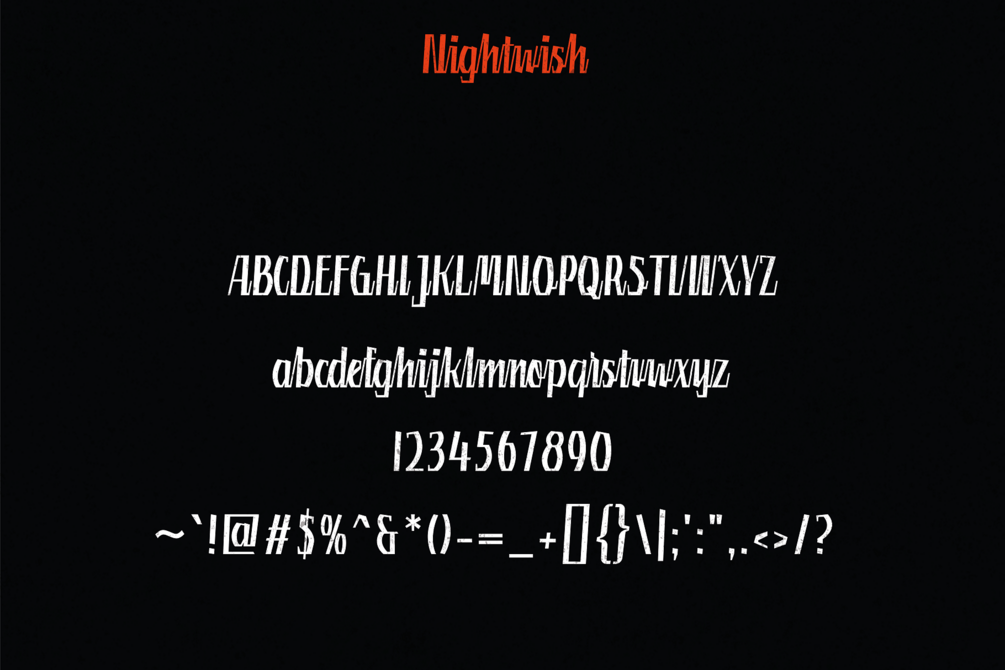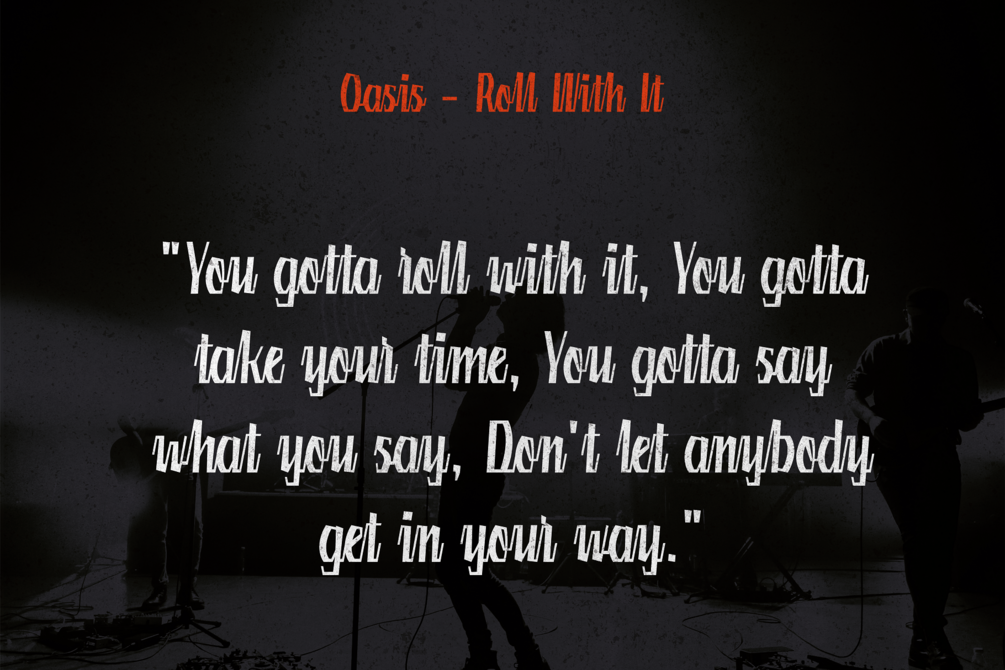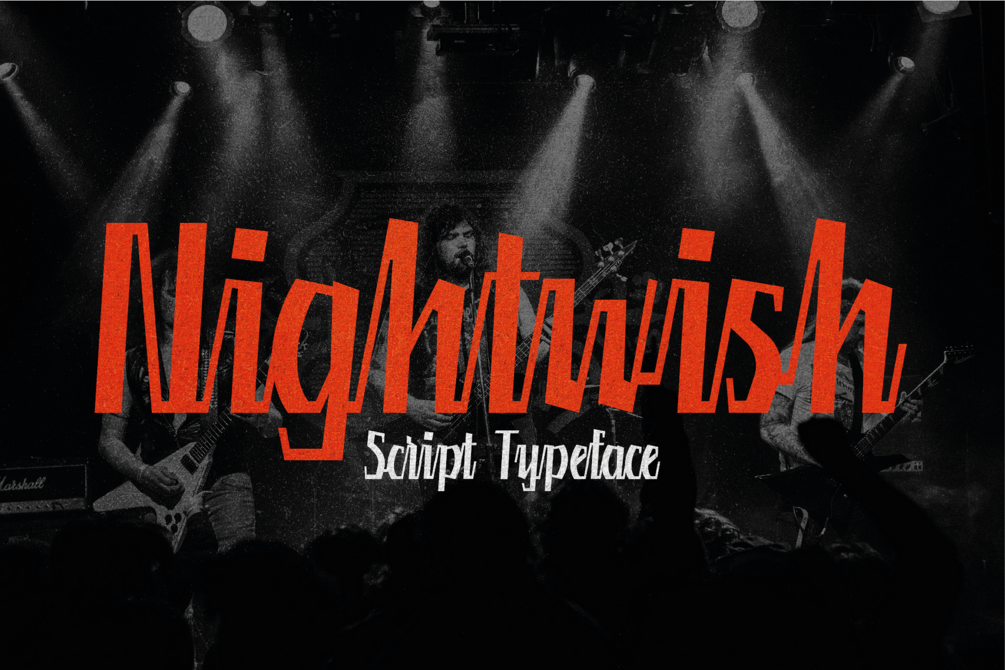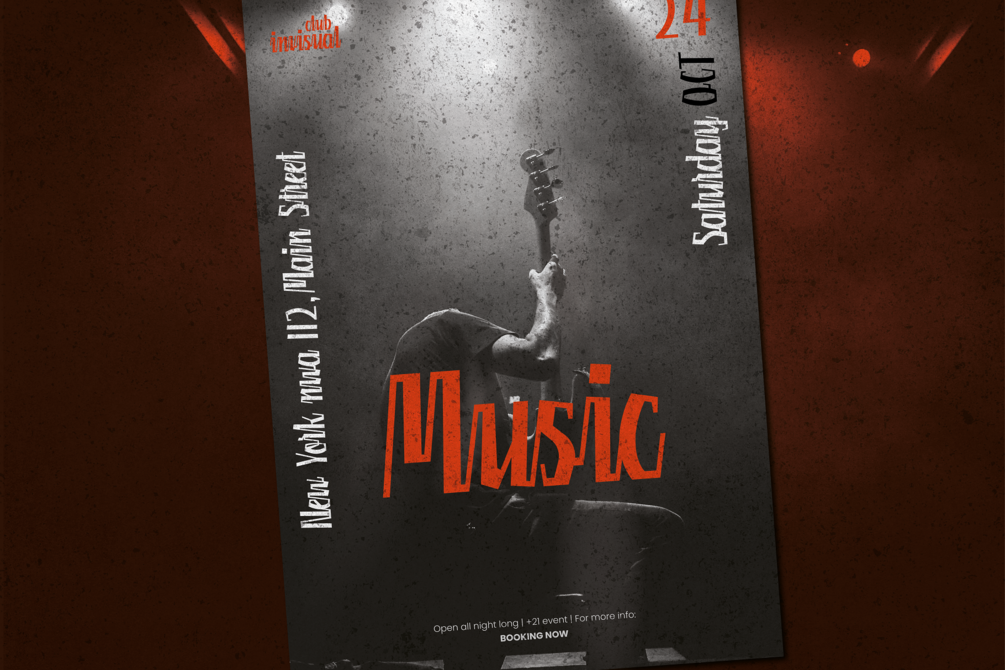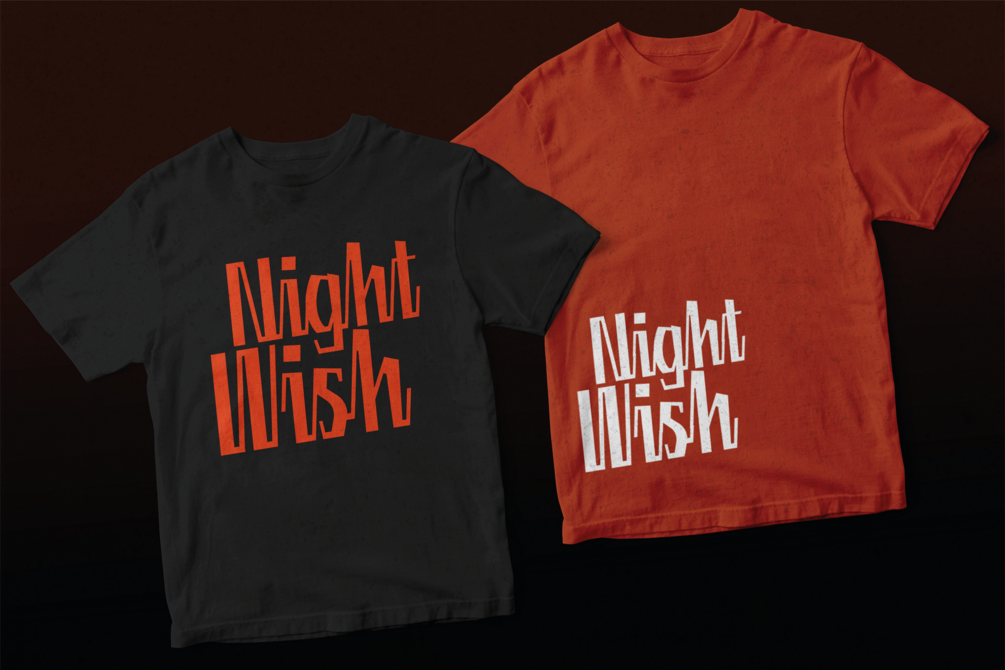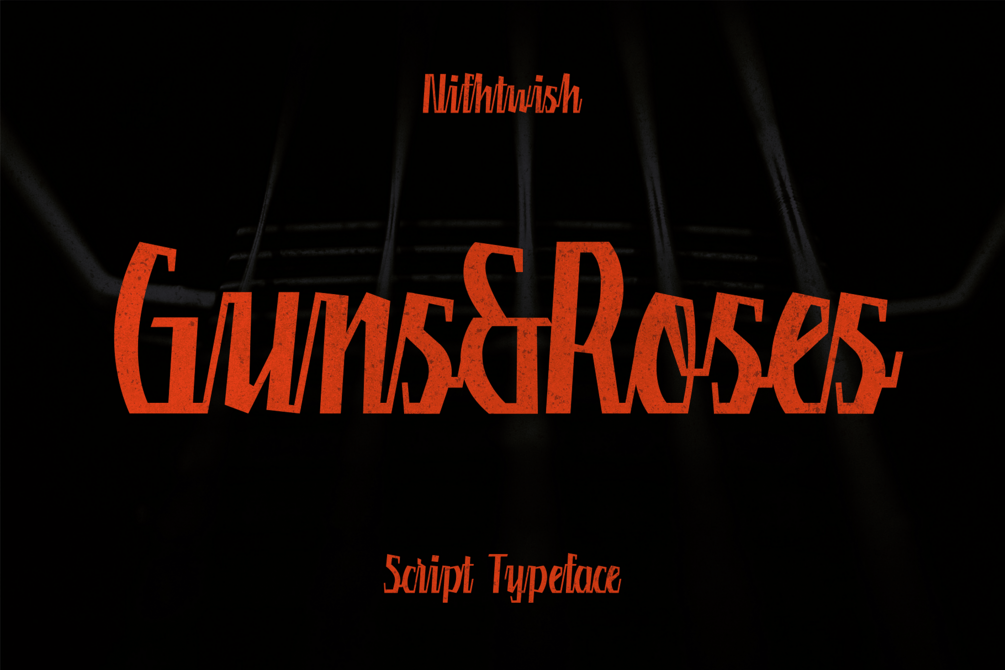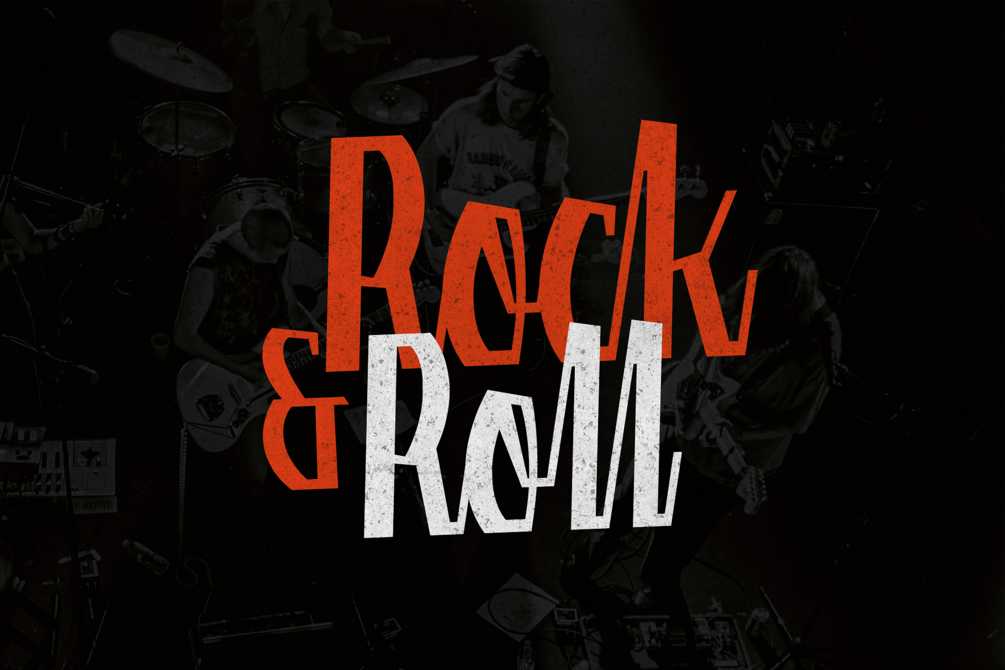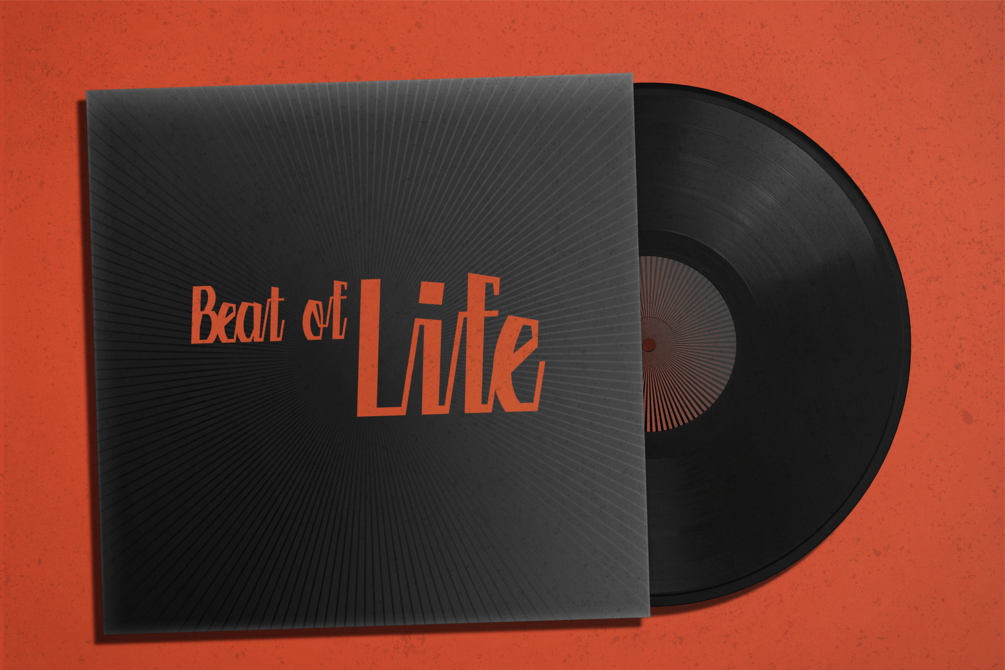
Nightwish - Script Typeface
Nightwish is a sharp script typeface. The font is a bit slanted as if it's handwritten. Its gothic/Old English aesthetic is ideal for apparel, greeting cards, product packaging, book covers, album covers, logos, social media, posters, and more. If your design requires an aggressive vibe, then Nightwish should definitely be on your radar.